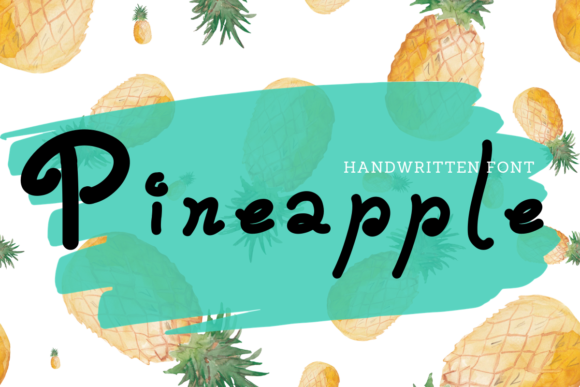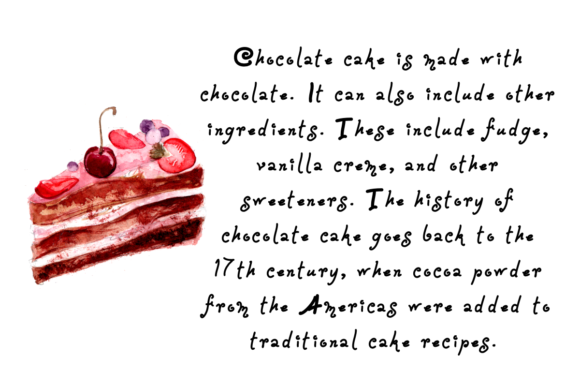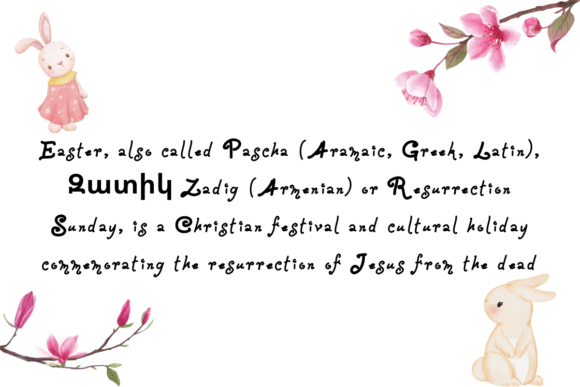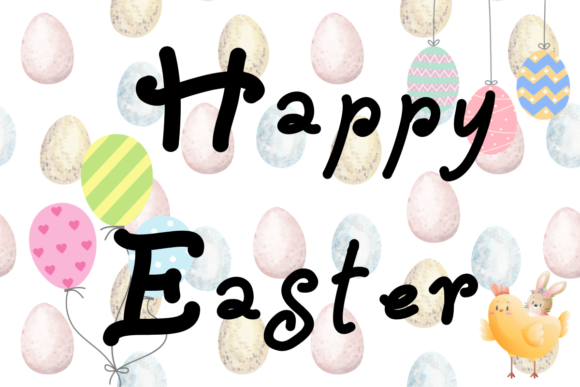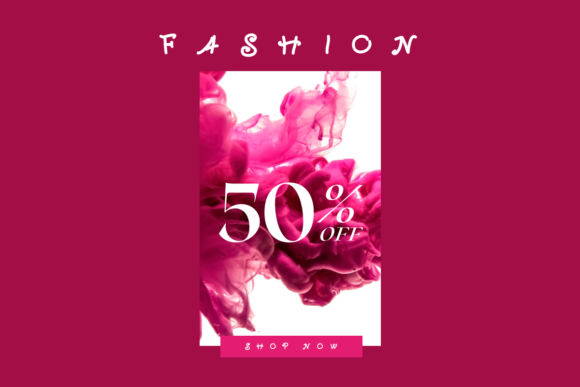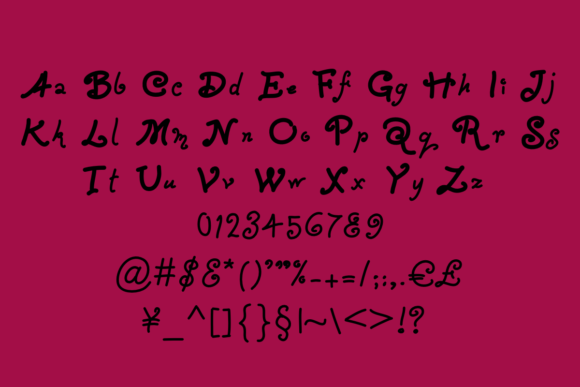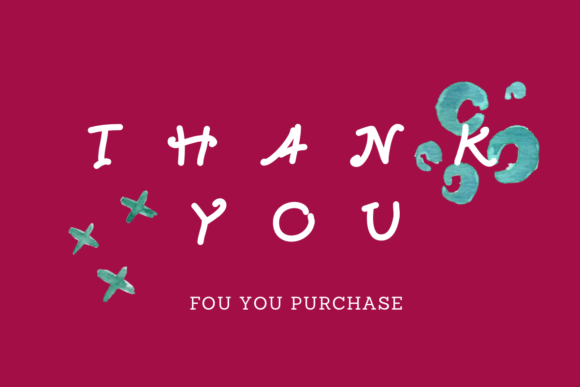
Pineapple Font
About Pineapple Font
“Pineapple” is a font that embodies simplicity, naturalness, and adaptability. Its handwritten style adds a personal touch to a wide range of designs. Whether it’s wedding invitations, thank you cards, greetings, logos, and more, this font seamlessly blends with various creative projects.
The font’s allure emanates from its ability to encapsulate simplicity and a natural feel. Its adaptable nature allows it to enhance the beauty of diverse designs with its charming handwritten aesthetic.
“Pineapple” thrives across an array of design applications, elevating each project it graces. Whether used to infuse warmth into wedding invitations, convey gratitude through thank you cards, add personality to greetings, or lend a touch of authenticity to logos, its versatility shines through.
In essence, “Pineapple” is more than just a font; it’s a versatile tool that adds a personal and natural touch to your designs. Its potential to enhance visuals in various contexts, coupled with its charming handwritten style, makes it a valuable asset for designers seeking to create heartfelt and authentic visuals.